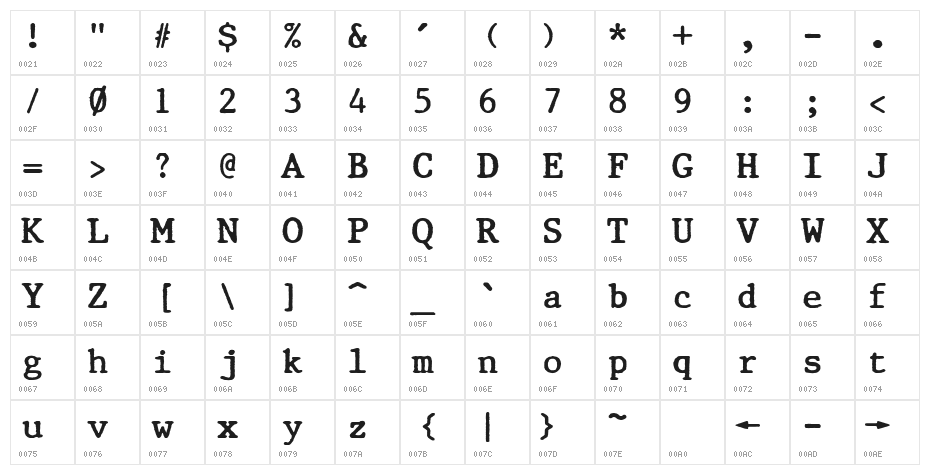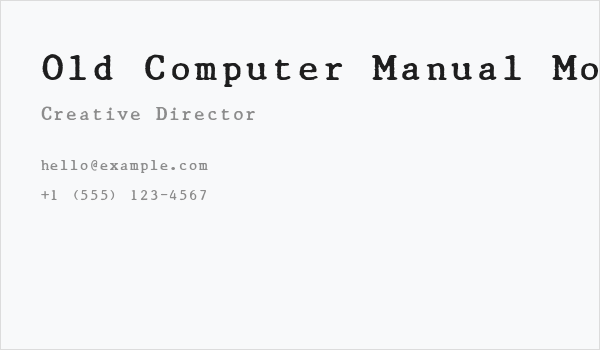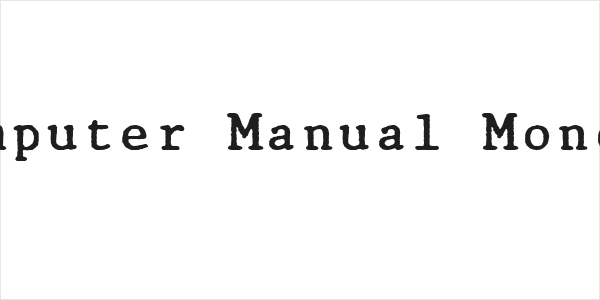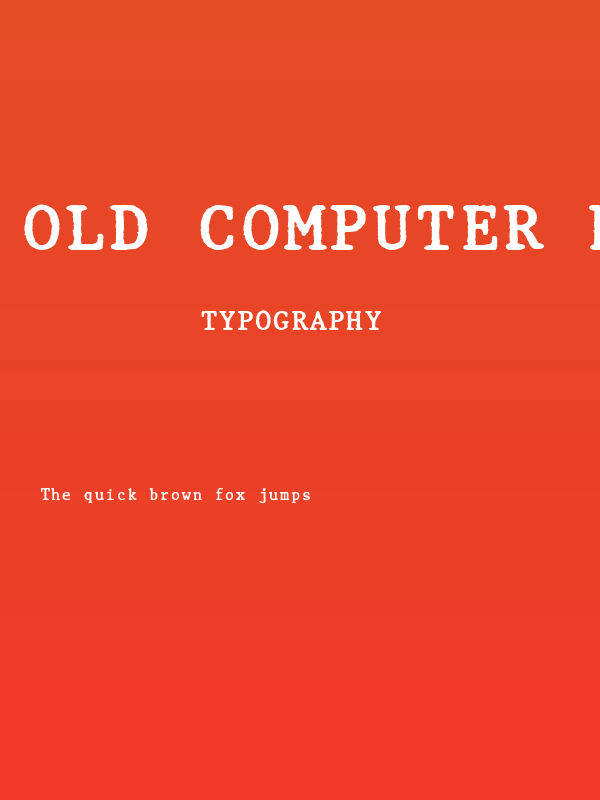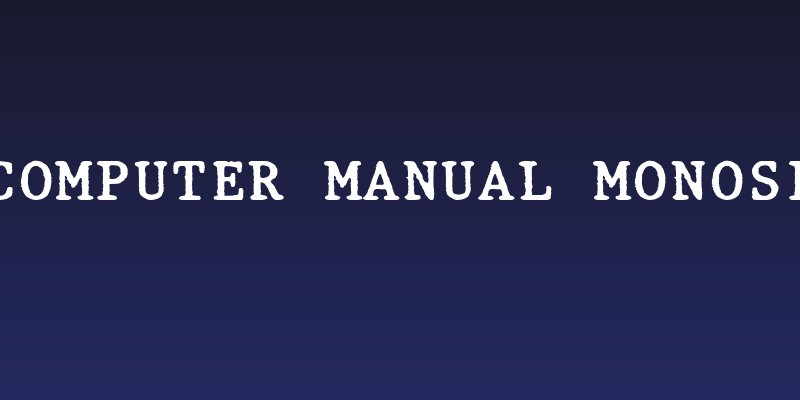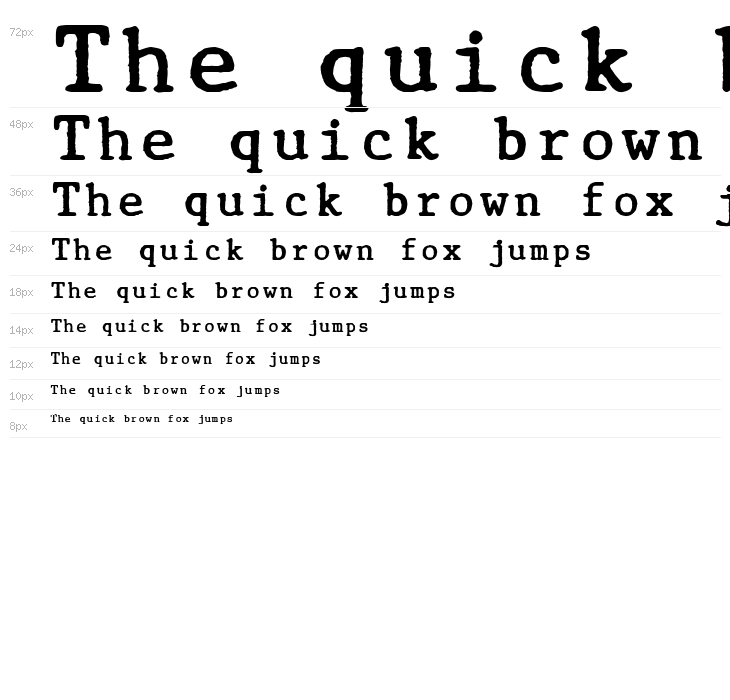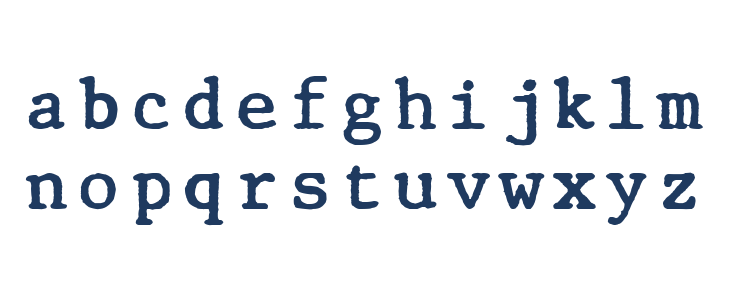
Old Computer Manual Monospaced Font
Old Computer Manual Monospaced Description
This font evokes a nostalgic feel reminiscent of old typewriter or computer manuals. Each character is monospaced, ensuring uniformity in width, which is typical of typewriter fonts. The letters have a slightly rough, textured appearance, adding to the vintage aesthetic. The uppercase letters are bold and prominent, while the lowercase letters maintain a consistent style with rounded edges. Numbers and special characters follow the same monospaced format, providing a cohesive look across all characters. The font's design is straightforward yet charming, making it suitable for projects that aim to capture a retro or classic feel.
Overall StyleVintage
Proposed ProjectsIdeal for retro-themed designs, coding projects, vintage posters, or any creative work that requires a classic typewriter aesthetic.